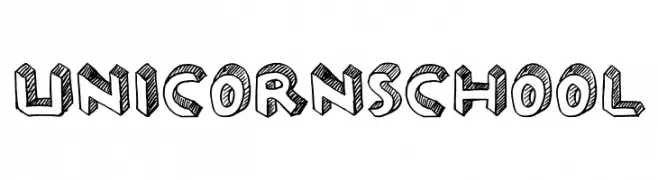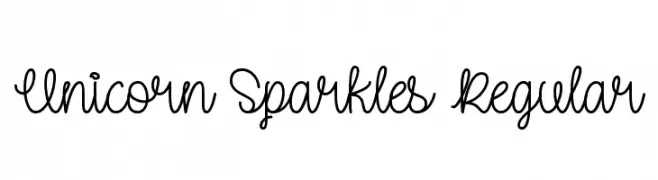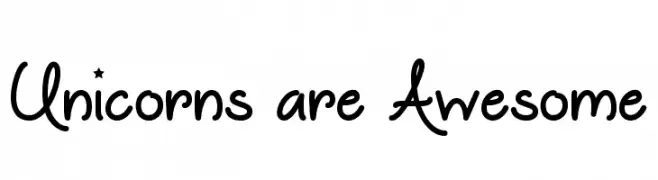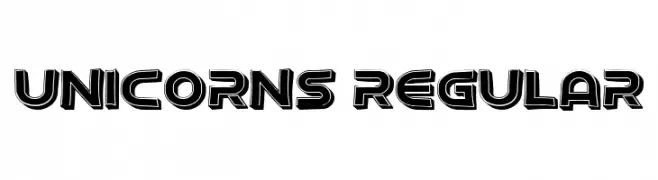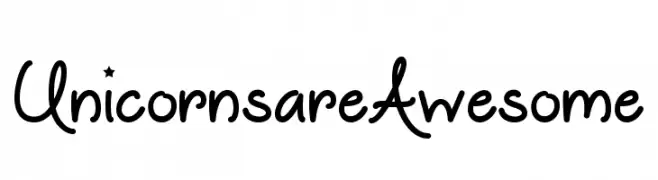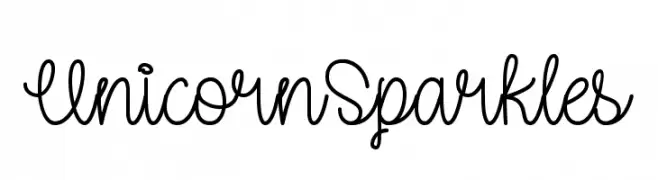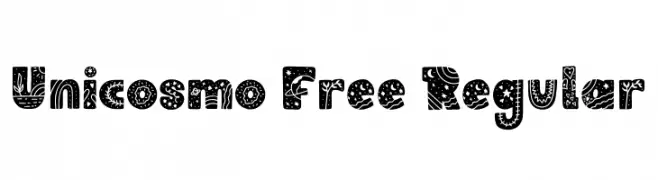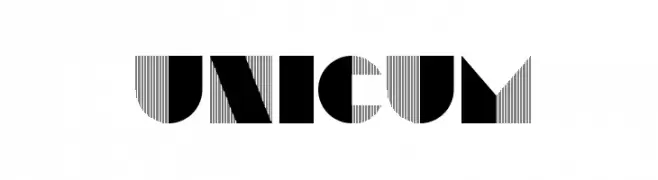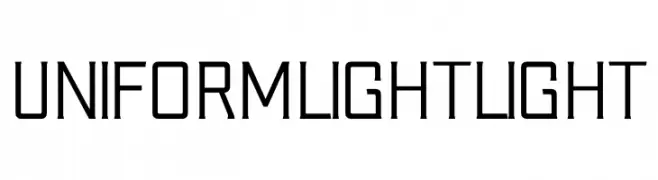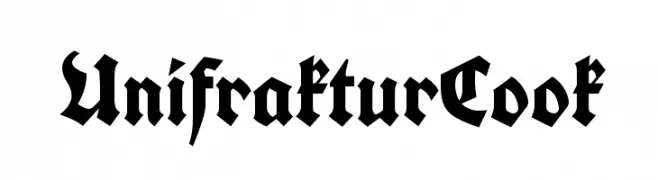
A bold, dynamic font with whimsical serifs and a playful yet sophisticated aesthetic.
A playful, hand-drawn font with a sketch-like, three-dimensional effect.
A whimsical, handwritten script font with playful, flowing characters.
A whimsical, unicorn-themed decorative font with stars and hearts.
A playful, hand-drawn font with rounded edges and a whimsical style.
A playful, handwritten font with rounded edges and a casual style.
A bold, distressed font with a vintage, textured style.
A whimsical, cursive font with playful loops and magical elements.
A playful, handwritten font with a whimsical and friendly style.
A whimsical, playful font with curly, flowing strokes and decorative elements.
A bold, futuristic font with a geometric and three-dimensional style.
A whimsical, handwritten font with playful curls and swirls.
A whimsical, handwritten script font with playful, flowing characters.
A decorative font with bold, patterned letters and whimsical designs.
A modern, geometric font with bold lines and unique negative space design.
A bold, geometric font with a modern, minimalist aesthetic.
A modern, geometric sans-serif font with clean lines and uniform thickness.
A bold, playful font with rounded edges and a cohesive, friendly style.
A modern, geometric font with clean lines and uniform stroke width.
A bold, geometric font with a modern, industrial aesthetic.
A bold Blackletter font with sharp, angular lines and a medieval aesthetic.
A bold Blackletter font with intricate, angular strokes and a medieval aesthetic.
A traditional blackletter font with ornate, gothic letterforms.
A bold, ornate Blackletter font with a Gothic, medieval style.
A traditional blackletter font with intricate detailing and historical elegance.
A traditional blackletter font with ornate, dramatic letterforms.
A bold and ornate blackletter font with intricate details and a historical aesthetic.
A bold and intricate Blackletter font with high contrast and ornate details.
A traditional blackletter font with intricate, ornate letterforms.
A traditional blackletter font with ornate, medieval-inspired letterforms.